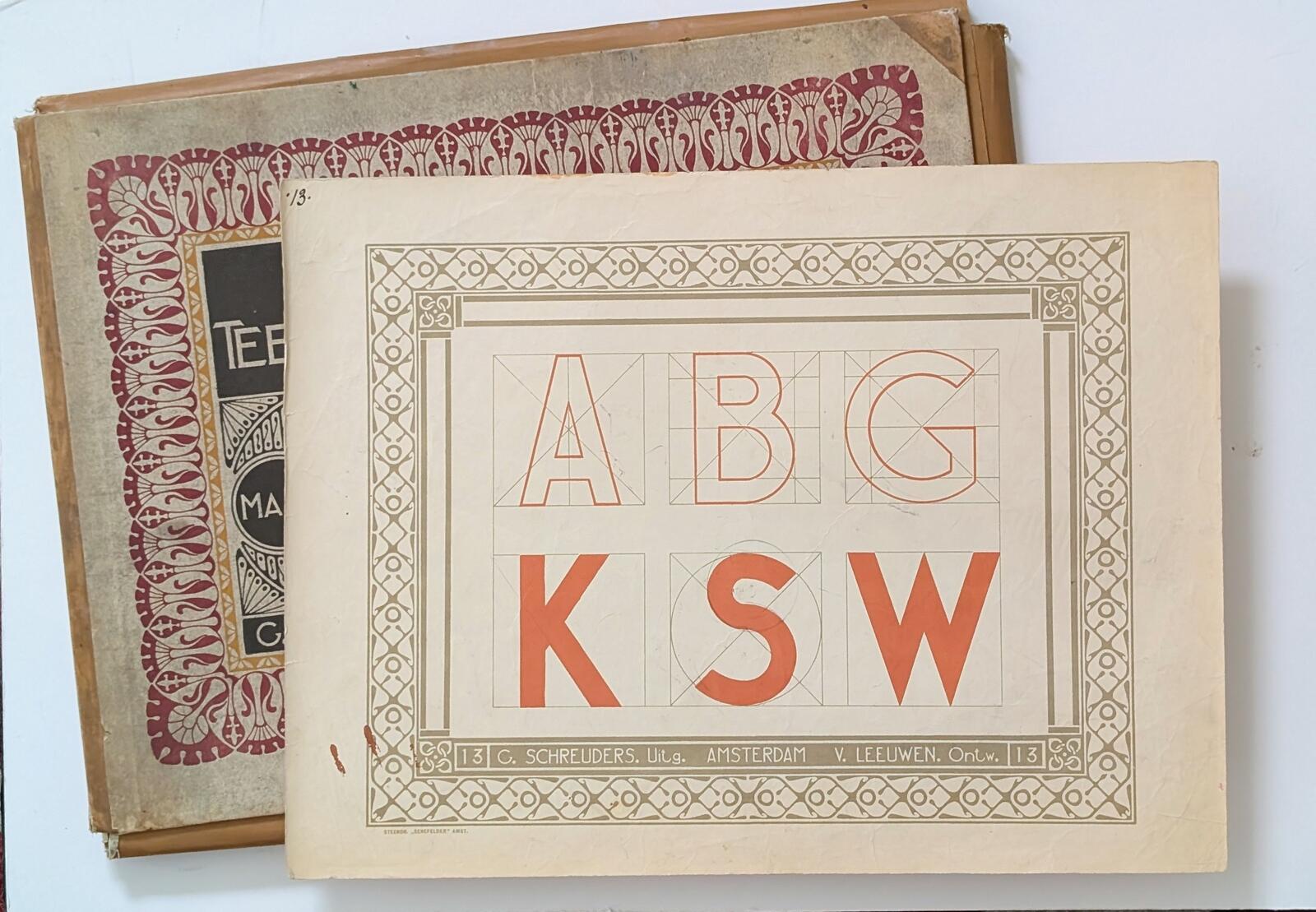
About the 1907 Letterboek by Klaas van Leeuwen
Amsterdam had its own, rational Art Nouveau variant. Mathieu Lauweriks was a leading representative. Klaas van Leeuwen also moved in these circles and Mathieu Lommen wrote an article about one of his books.